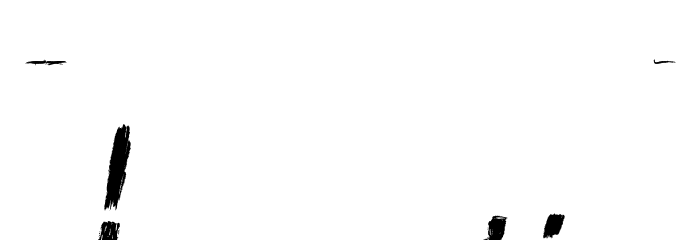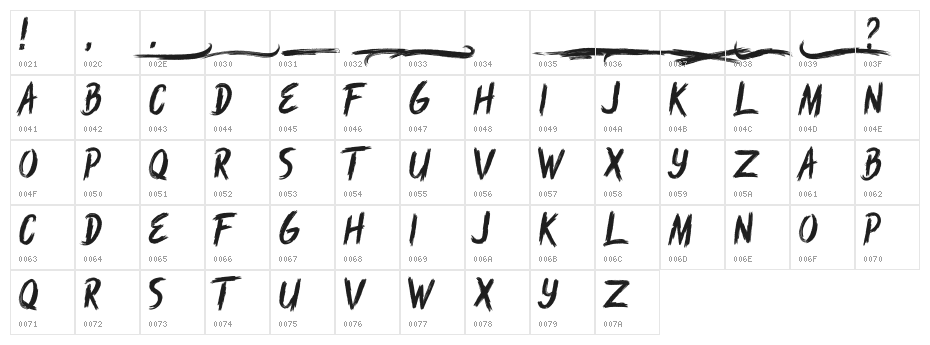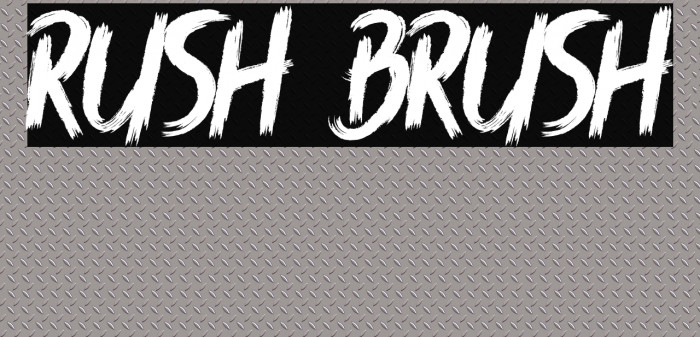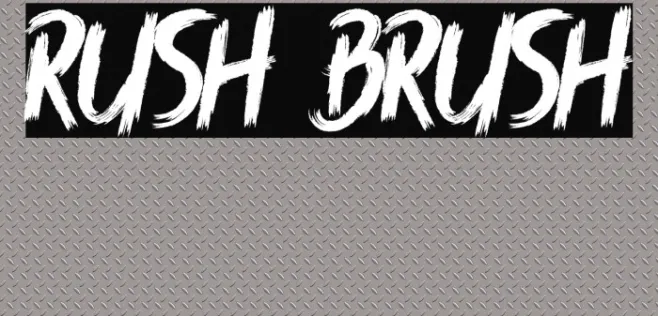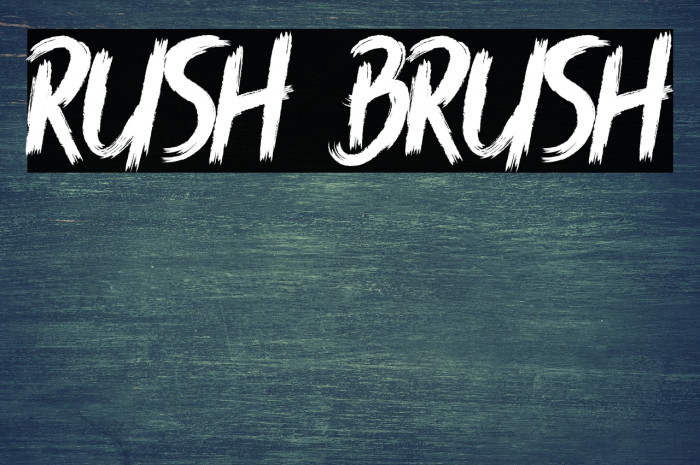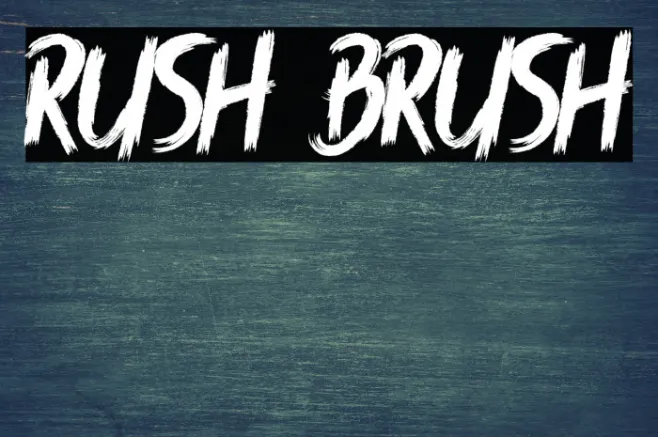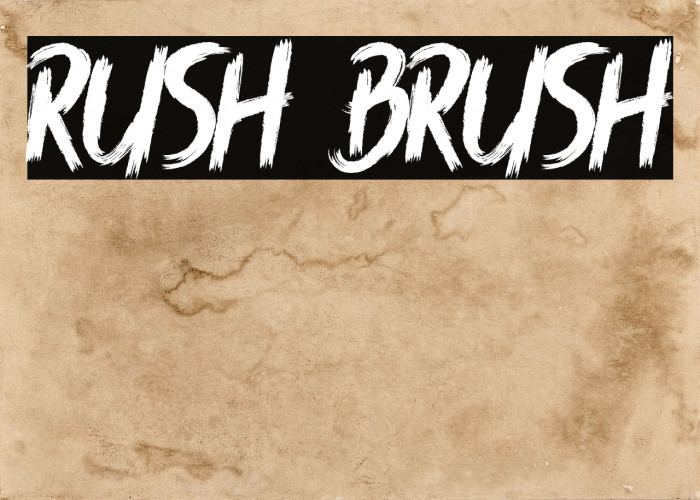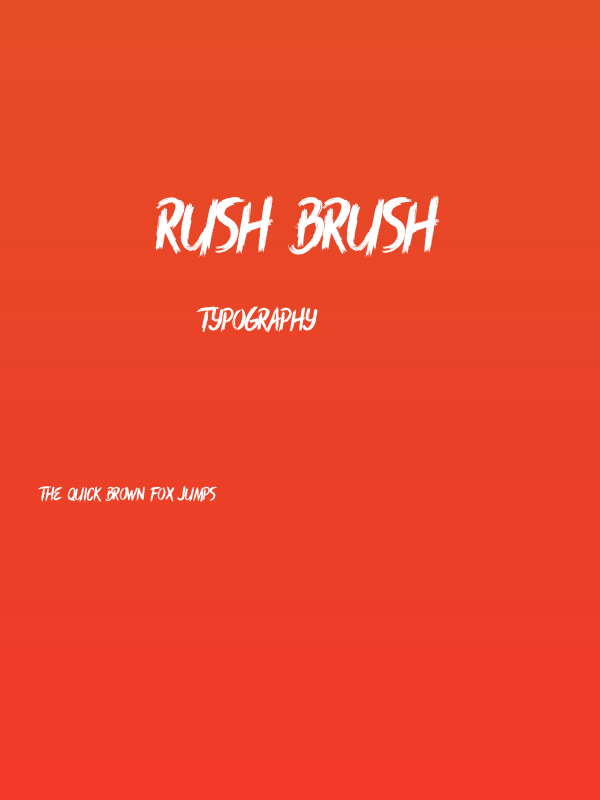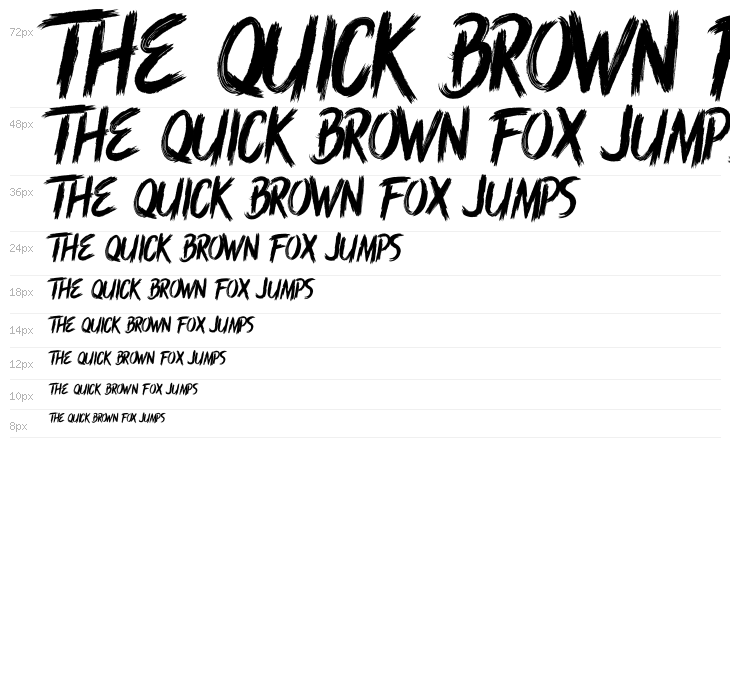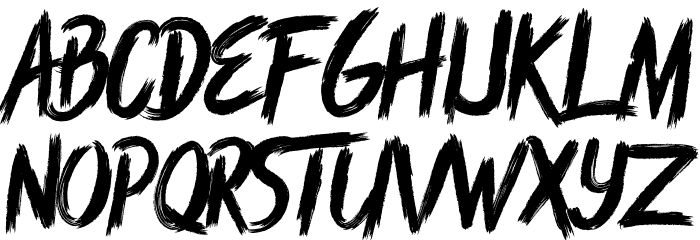
Rush Brush Font
Rush Brush Description
This font exudes a dynamic and energetic vibe, characterized by its bold, brush-like strokes that convey a sense of movement and spontaneity. The letters are crafted with a rough, textured appearance, reminiscent of hand-painted signage or graffiti art. Each character is unique, with varying stroke widths that add to the overall lively and informal feel. The uppercase and lowercase letters maintain a consistent style, ensuring readability while still capturing attention. This font is perfect for projects that require a bold statement or a creative, artistic touch.